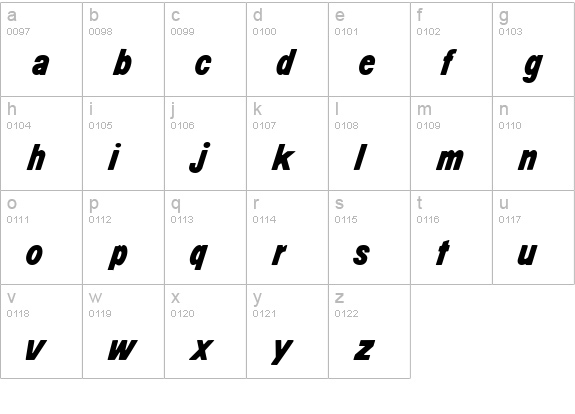
Black Oblique HPLHS Font Details
Black Oblique HPLHS is a maximum-weight, dramatic, italic variant in the Black typeface family \xE2\x80\x94 well suited to maximum-impact headlines, posters, and packaging.
The Black Oblique HPLHS font is a sleek and modern typeface that exudes sophistication and elegance. Its bold and slanted design gives it a unique edge, making it perfect for a variety of design projects. Whether you're creating posters, logos, or branding materials, this font is sure to make a statement. What's even better is that the Black Oblique HPLHS font is available for free download at FontsMarket.com. Embrace the stylish and contemporary look of this font without breaking the bank. Don't miss out on this opportunity to add a touch of class to your designs with the Black Oblique HPLHS font, now easily accessible for free at FontsMarket.com.